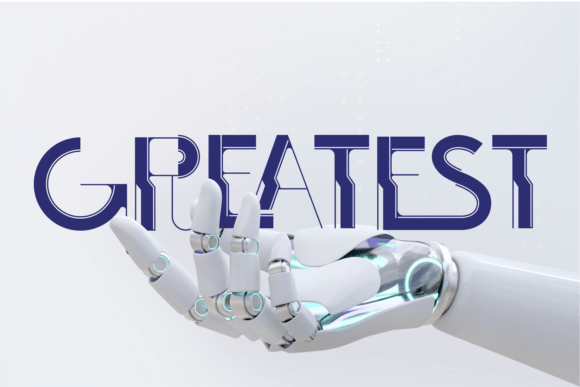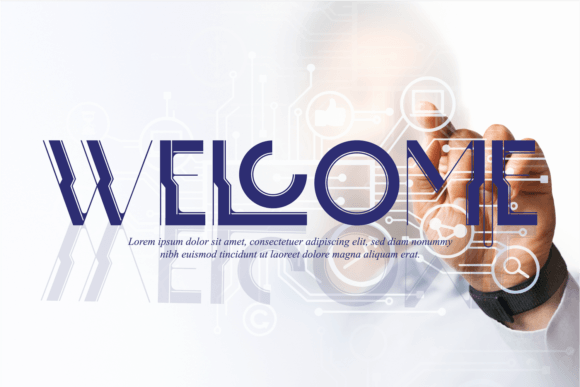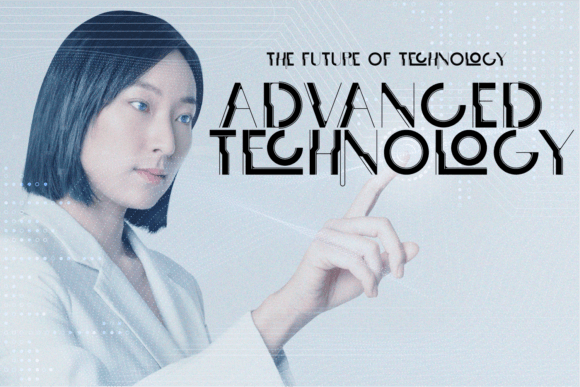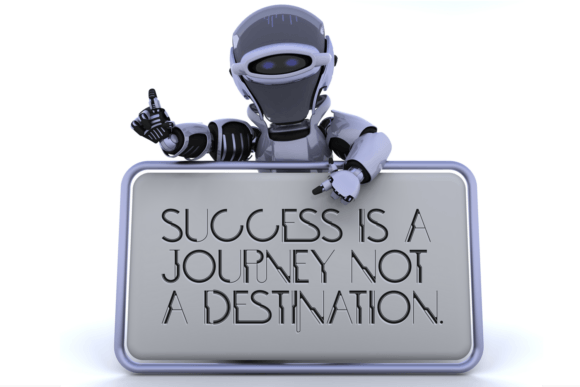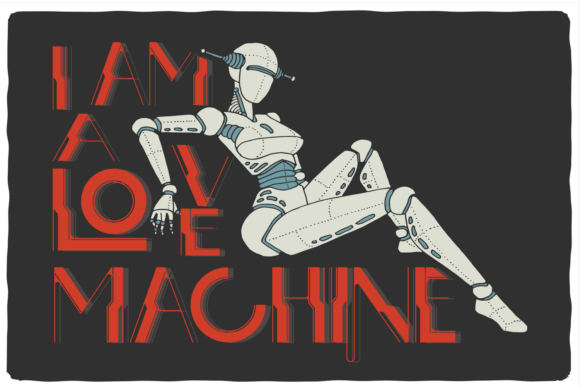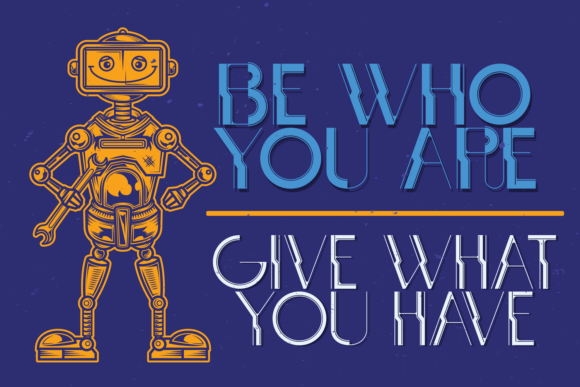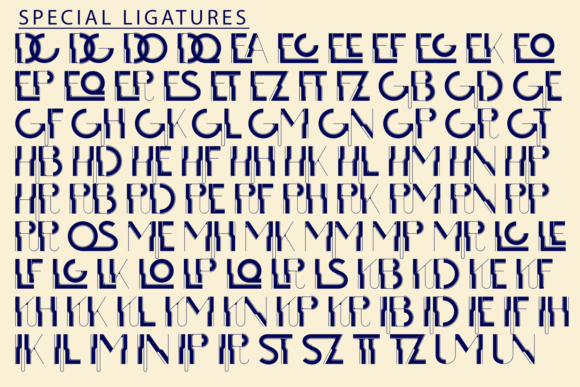
The Birth of a Timeless Classic: Greatest Font
Imagine strolling through a vintage art deco exhibition, surrounded by opulent designs and geometric patterns. The intricate details and sleek lines transport you to a bygone era, where style and sophistication reigned supreme. It’s moments like these that inspire creativity, and for the designers behind Greatest Font, it was a defining moment that sparked the creation of this stunning typeface.
Greatest Font is a masterful blend of simple geometric forms and curvy passion, evoking the essence of the art deco era. With its strong lines and elegant flair, it’s the perfect font to evoke a sense of futurism from a bygone perspective. Whether you’re designing wedding invitations, branding, or custom art, Greatest Font is an invaluable asset that will elevate your creations to new heights.
Greatest Font Key Features
- Unique Characteristic: Advanced ligature system for improved text flow and readability, especially in long blocks of text.
- Font Weight and Style: Offers a range of font weights (Thin, Light, Regular, Medium, Bold, Heavy) and styles (Italic, Oblique) for versatility.
Greatest Font Review
I’ve had the chance to play around with “Greatest Font” and I must say, it’s got some great qualities, but also some limitations.
- Legibility: “Greatest Font” is incredibly easy to read, even at small sizes.
- Customization: It offers a wide range of customization options, from font size to line height.
- Compatibility: It works seamlessly across various platforms and devices.
- Limited Character Set: “Greatest Font” doesn’t support some of the more exotic characters and languages.
- Weight Limitations: While it offers a range of weights, some of them feel a bit too similar.
- Distress: I found the distressed versions of the font to be a bit too over-the-top, making it hard to read.
Overall, “Greatest Font” is a solid choice for projects where readability is key. However, it falls short in terms of character set and weight customization. I’d recommend it for body text, but not for headings or titles where more flair is needed.
Getting the Most Out of Greatest Font
Use the Greatest Font to create eye-catching headings and titles. This font is particularly effective for titles, headings, and other text elements that need to stand out. You can also use it to add a touch of sophistication to your designs.
The Greatest Font is ideal for:
Headings and titles
Logo designs
Business cards
Marketing materials